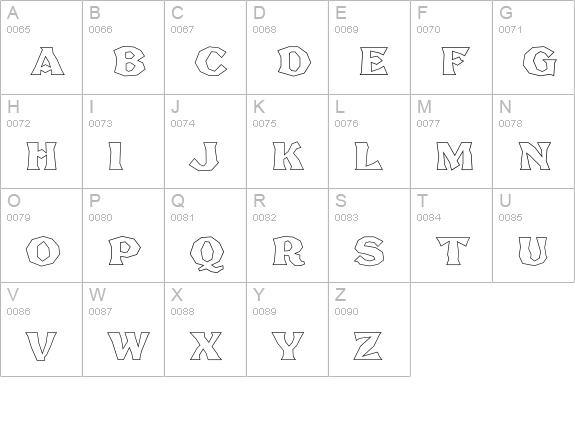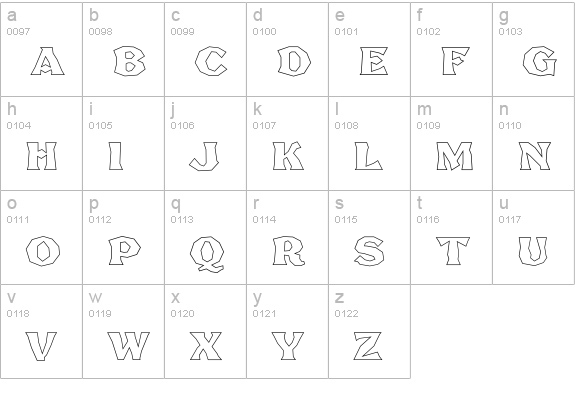
FHA Brokn Gothic BustdBB NC font is a stunning display typeface that exudes a sense of edgy sophistication. Its bold and broken letterforms captivate the eye and make a powerful statement wherever it is used. This unique font is perfect for creating attention-grabbing headlines, logos, posters, and other creative designs. What sets FHA Brokn Gothic BustdBB NC font apart is not just its striking design, but also the fact that it is available for free. That's right, you can freely download this exceptional font at FontsMarket.com. This means that you can add a touch of boldness and creativity to your projects without worrying about breaking the bank. Whether you're a graphic designer, a creative professional, or someone who simply loves experimenting with typography, FHA Brokn Gothic BustdBB NC font is a must-have in your font collection. Its versatility allows it to be used in a wide range of design projects, from modern and urban themes to vintage and retro aesthetics. With its broken and distressed letterforms, FHA Brokn Gothic BustdBB NC font adds a hint of rebellion and rawness to your designs. It effortlessly combines the elegance of traditional gothic typefaces with a contemporary twist, making it a truly unique choice for any project that demands attention. So why wait? Download FHA Brokn Gothic BustdBB NC font for free at FontsMarket.com and unleash your creativity today. Whether you're working on a branding project, a website design, or any other creative endeavor, this font will elevate your work to a whole new level. Don't miss out on the opportunity to add this extraordinary font to your design arsenal.